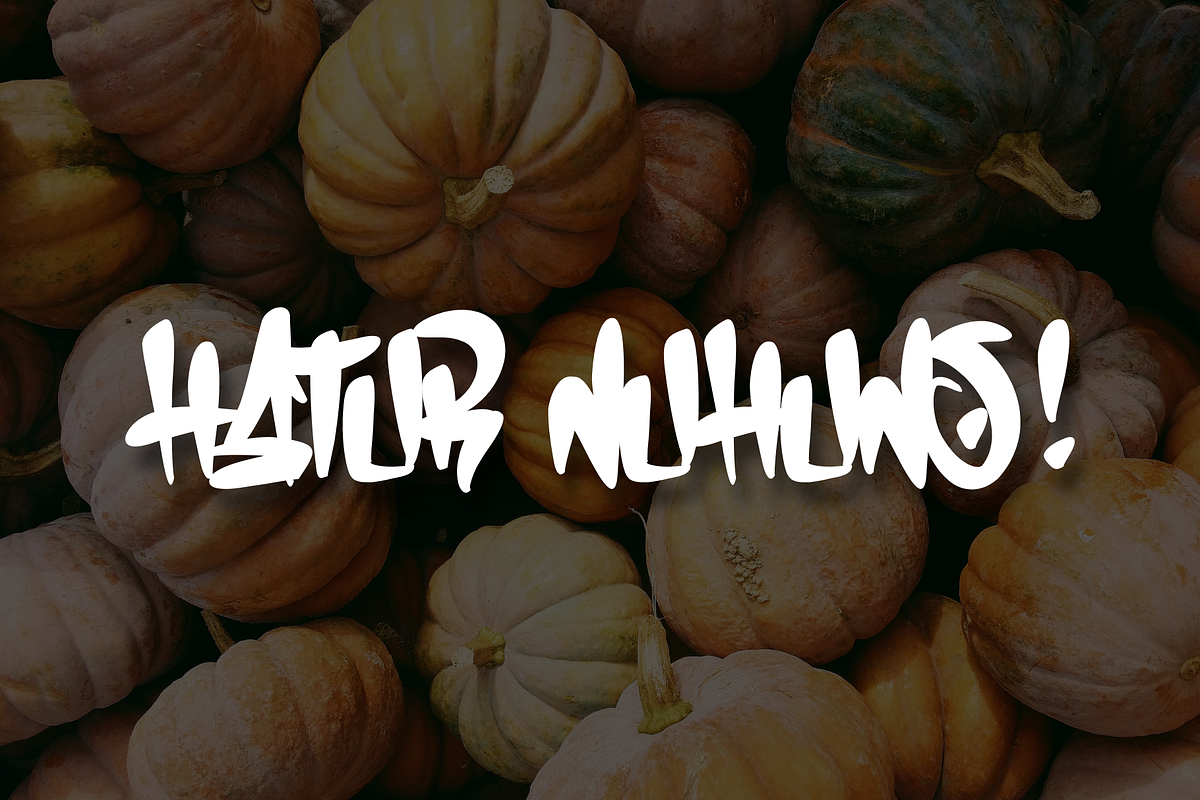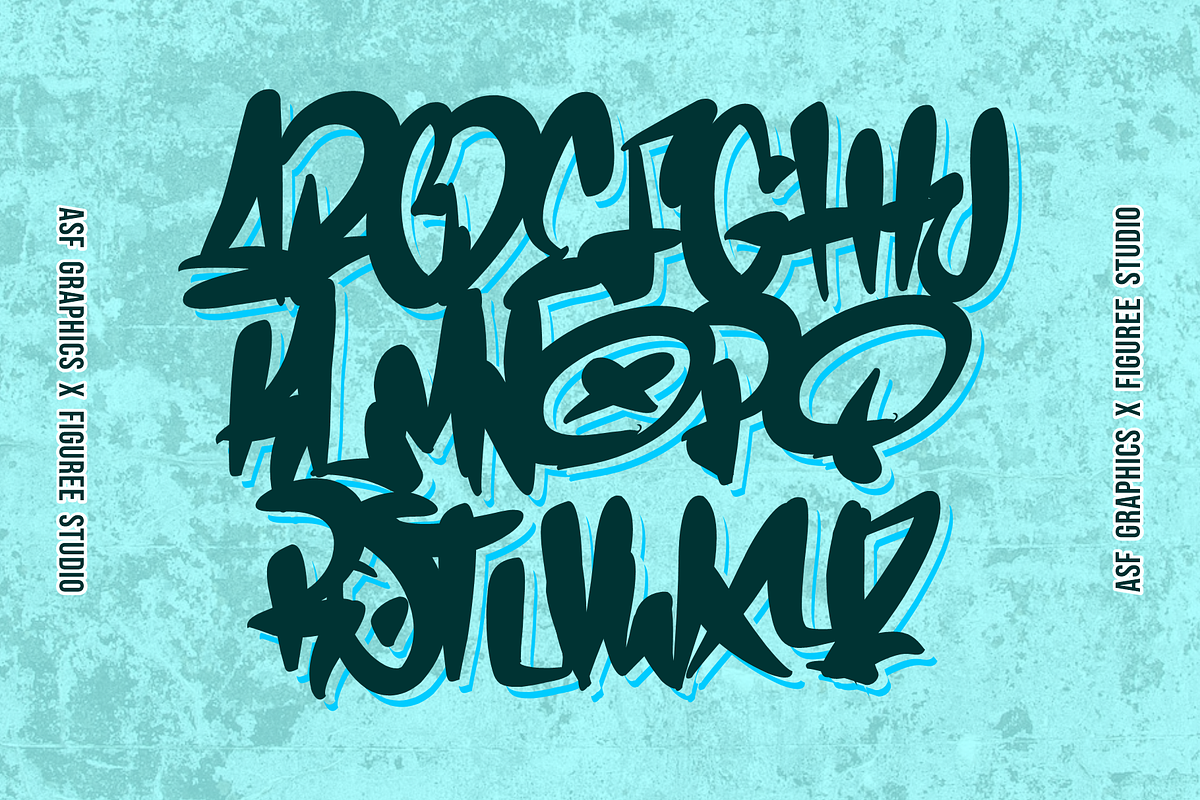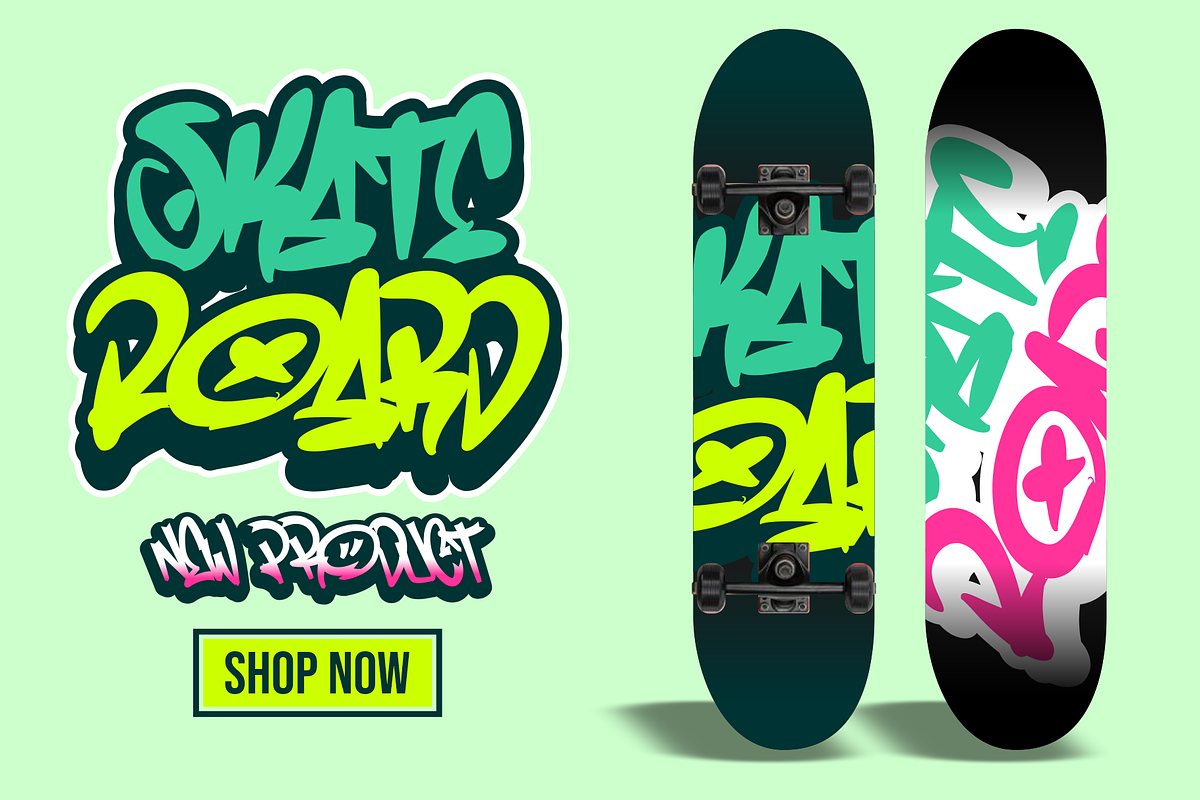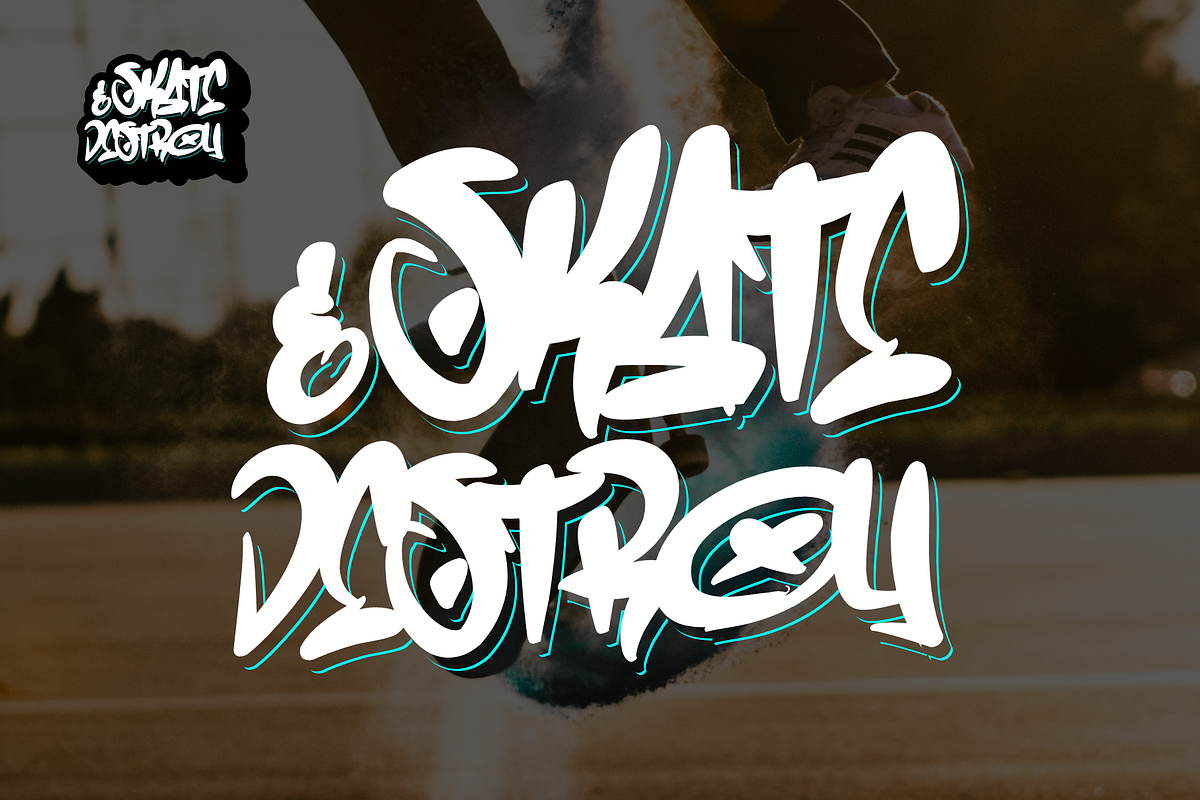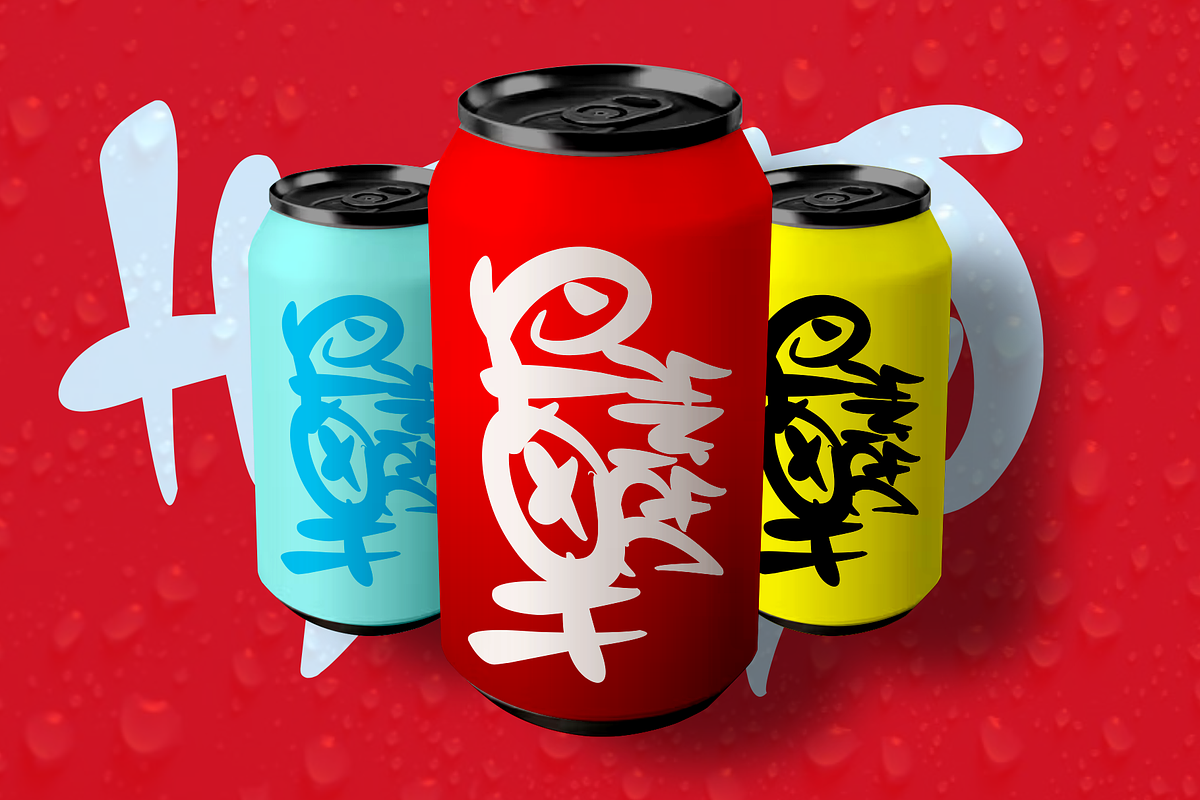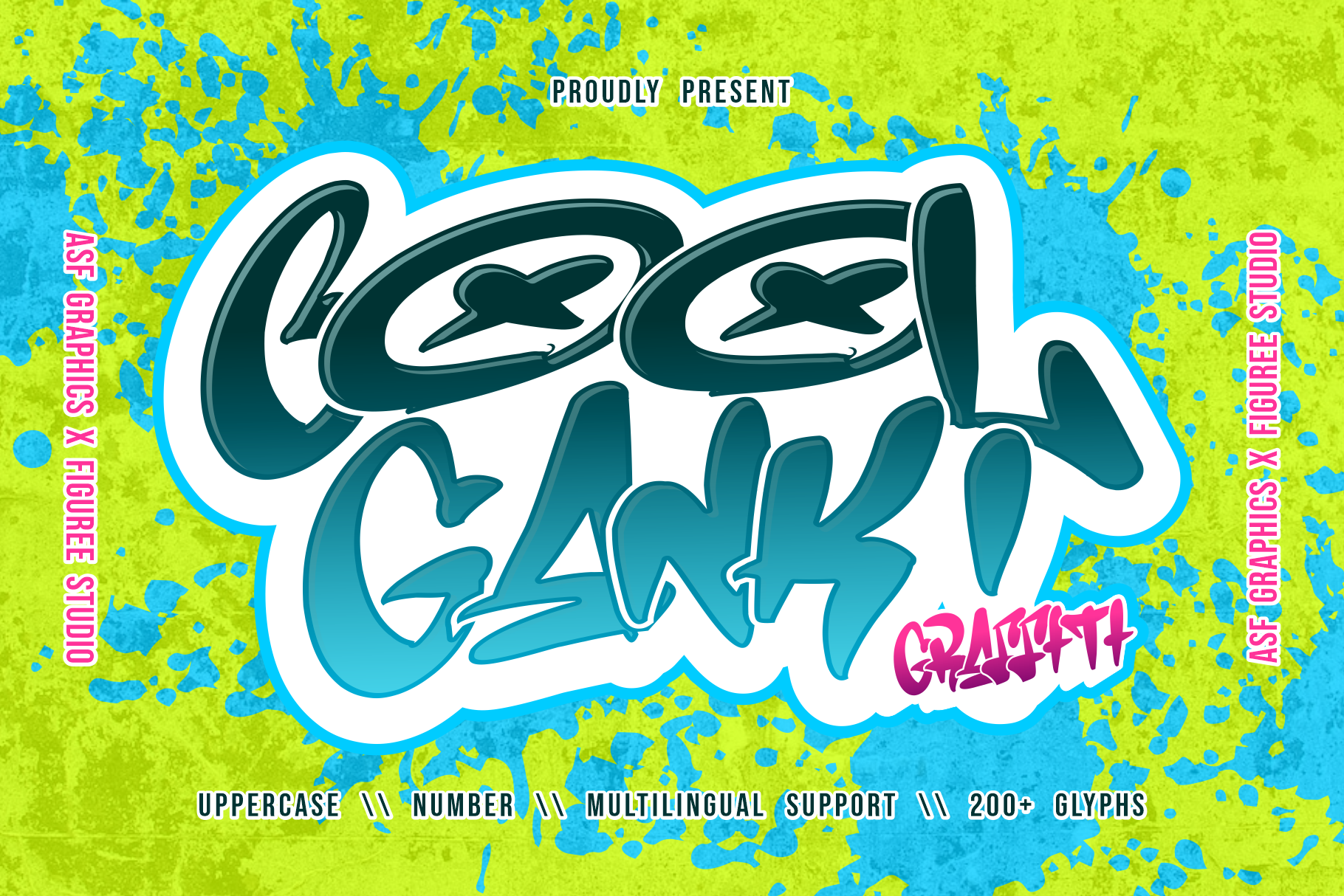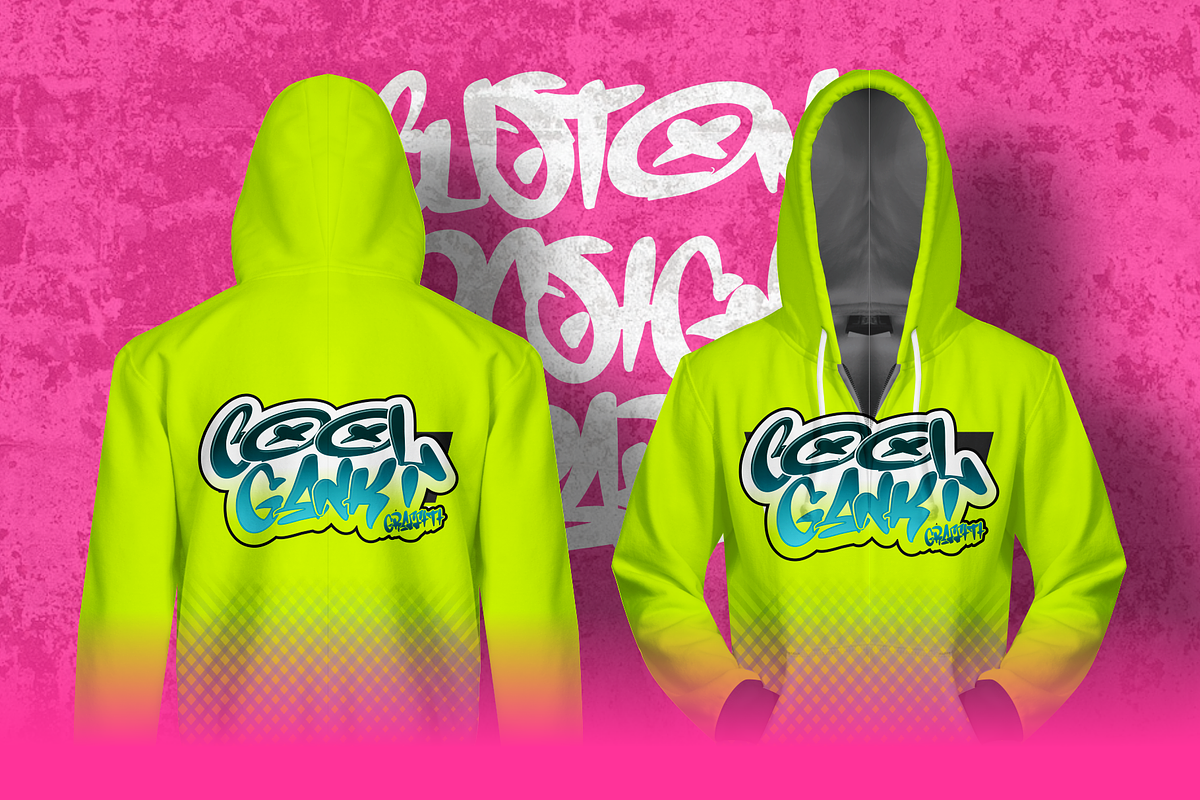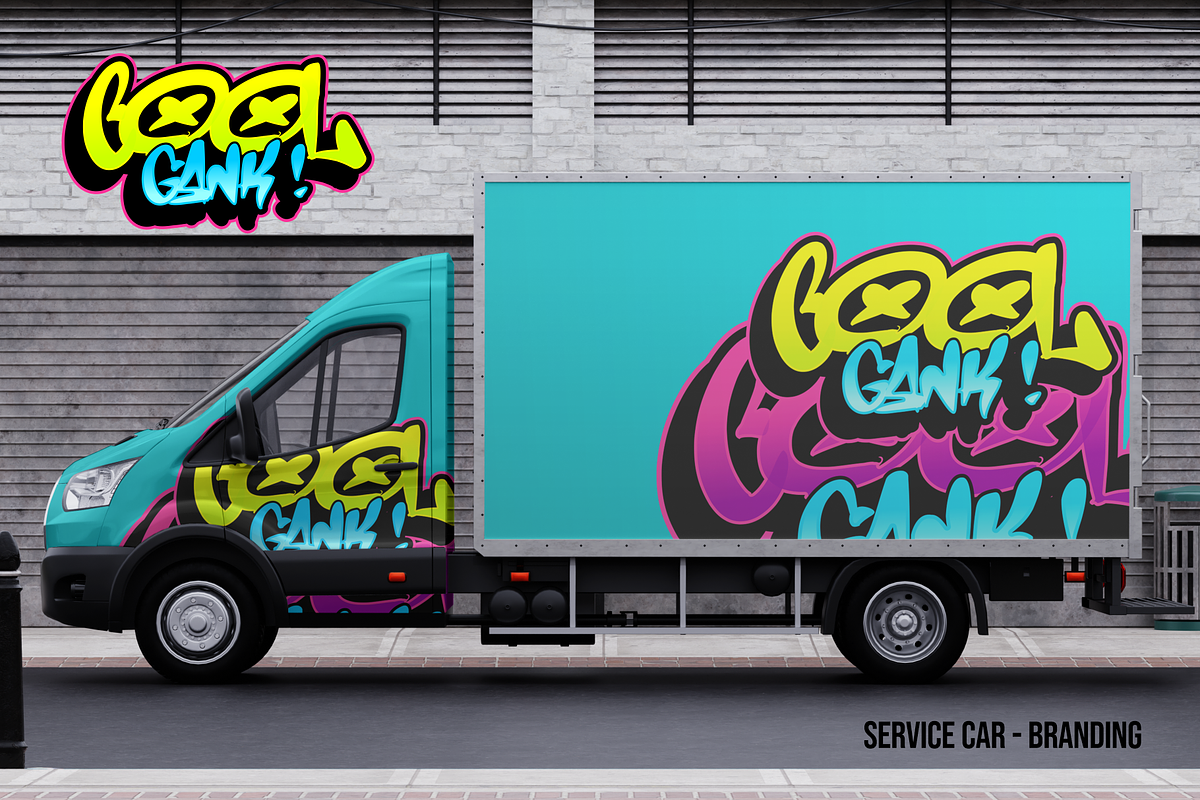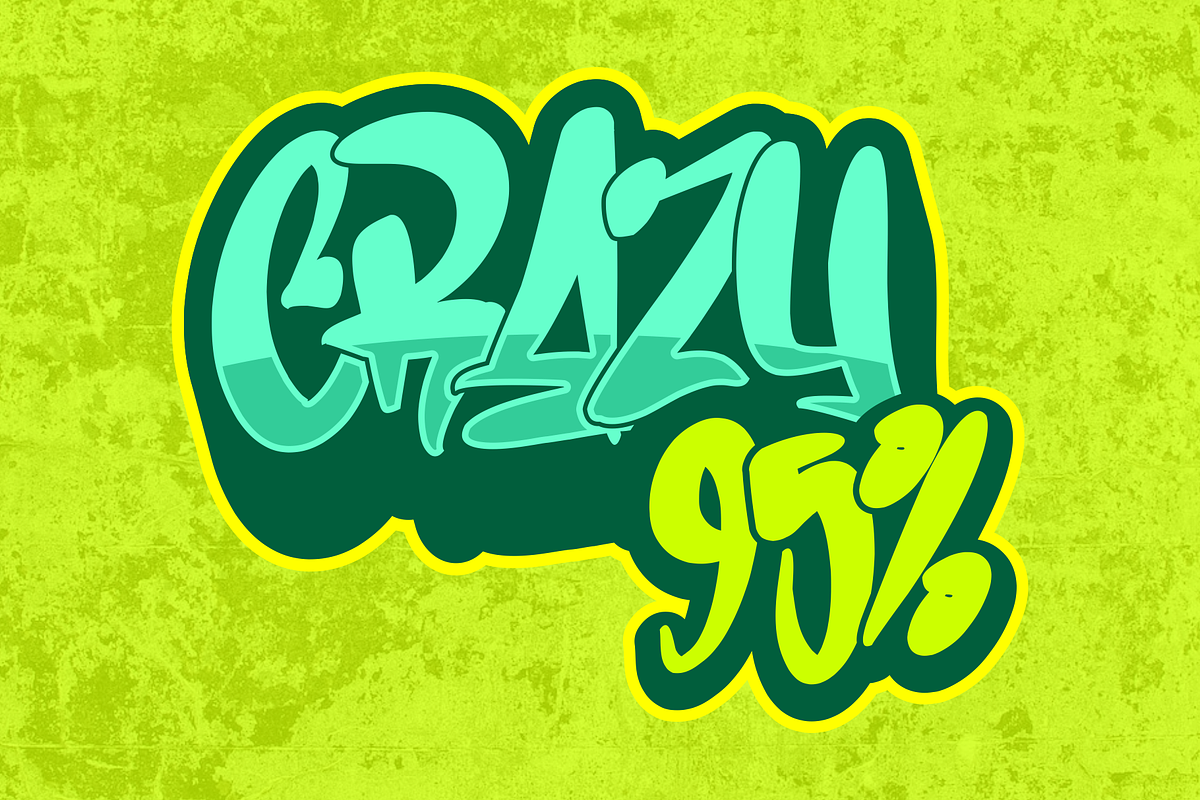
Coolgank - Dynamic Graffiti Font
Coolgank is a dynamic and urban graffiti font that exudes an edgy and streetwise vibe. Its bold, expressive lettering captures the rebellious spirit of graffiti art, making it perfect for projects that demand a touch of underground flair. Whether it's for posters, street art, or urban-themed designs, Coolgank adds a rebellious and artistic touch to your typography.